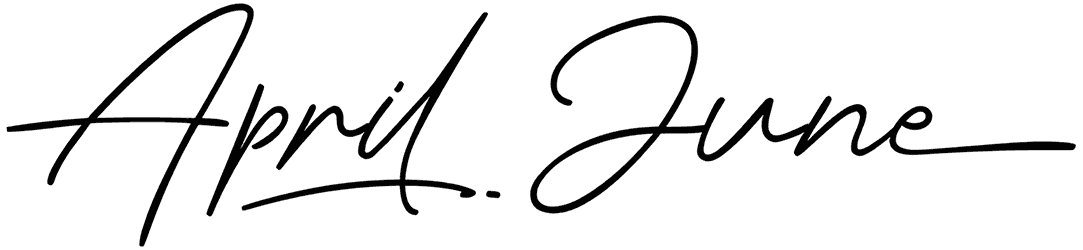
April June Font
If you need a delicate and casual style for your next layout, don’t lose this modern autograph font. April June has a chic pen lettering face that will give a captivating vibe to your words. Put this realistic handwritten font on your creative designs, from invitation cards to movie posters, and create a salient mood.